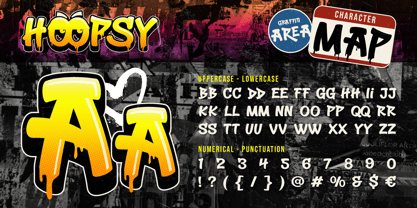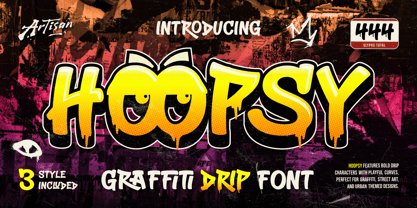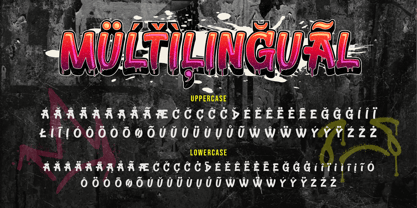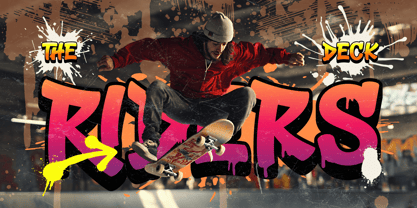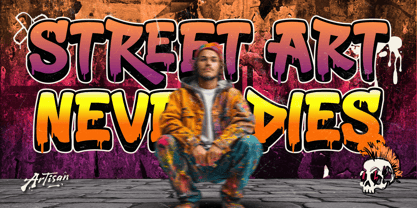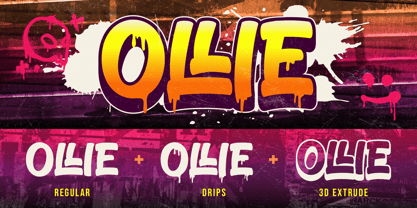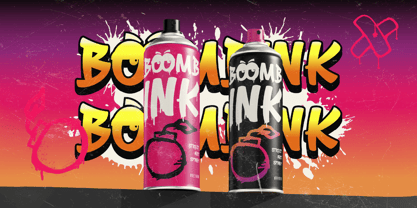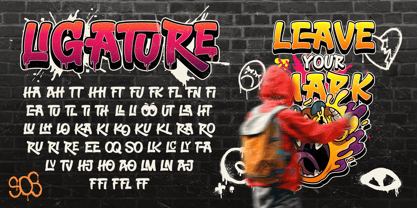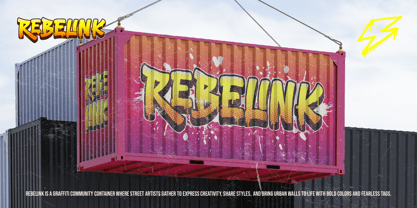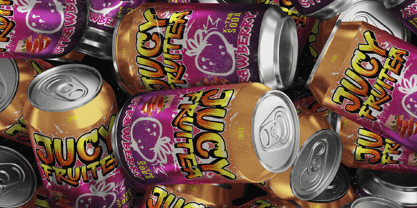
Hoopsy
by Artisan Themes
The Hoopsy Font Family was designed by Meidy Meichico and published by Artisan Themes. Hoopsy contains 3 styles and family package options. More about this family
Hoopsy is a bold and playful graffiti drip font inspired by street art, urban culture, and spray-paint lettering. The letters feature thick shapes with dripping ink details that instantly give your design a raw, energetic, and rebellious vibe. This font is perfect for creating eye-catching titles, streetwear designs, posters, music covers, skateboard graphics, graffiti artwork, and urban-themed branding. The playful curves and bold structure make every word look expressive and full of attitude. Hoopsy also comes with regular, 3D extrude and drips, giving you more flexibility to experiment and build unique graffiti-inspired designs. Whether you're designing for street culture, hip-hop visuals, or edgy creative projects, Hoopsy helps your text stand out and leave a strong visual impact.
Designers: Meidy Meichico
Foundry: Artisan Themes